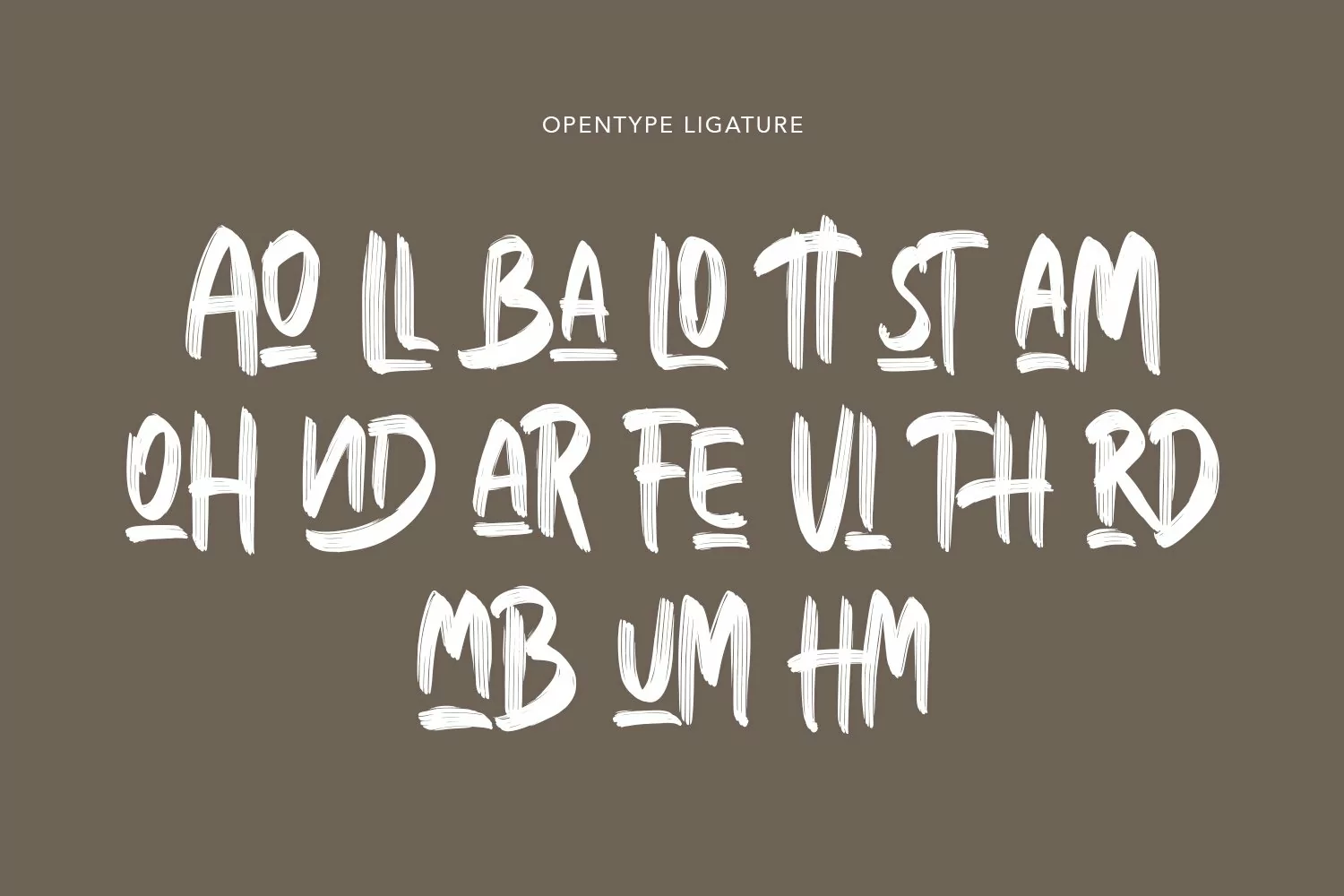
Give your designs an authentic brush handcrafted feel. "Dolores Casual Handwritten Font" is perfectly suited to signature, stationery, logo, typography quotes, magazine or book cover, website header, flyer, clothing, branding, packaging design and more.